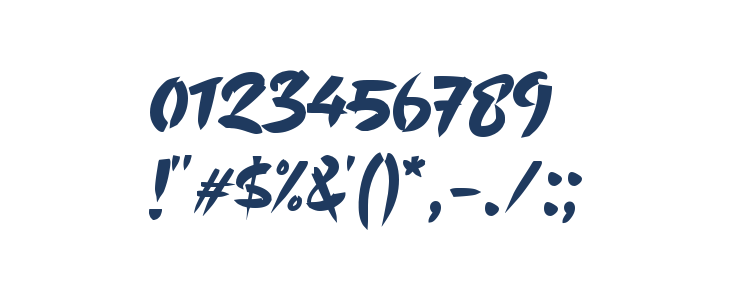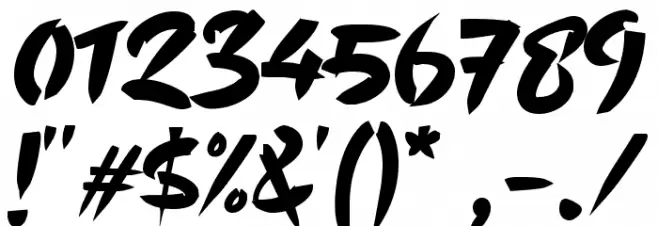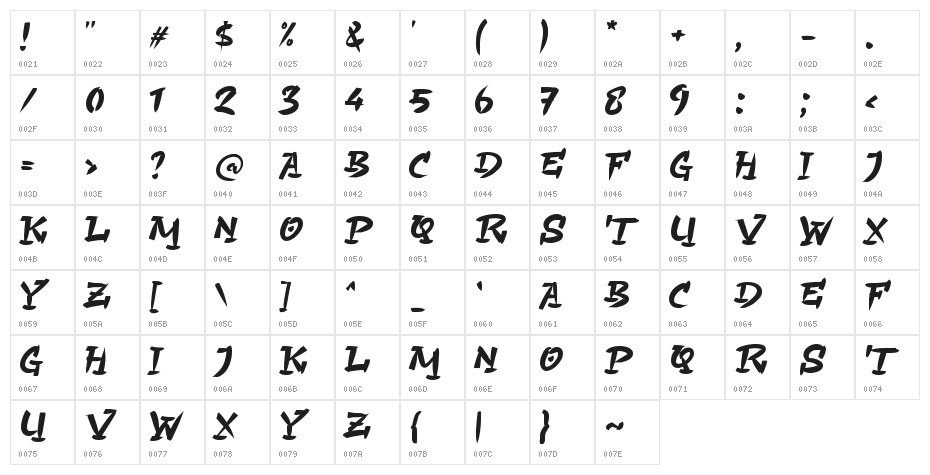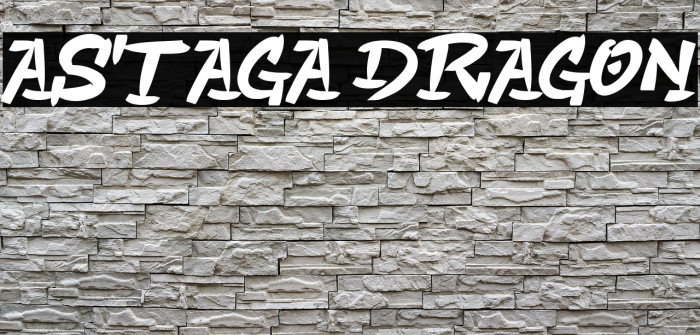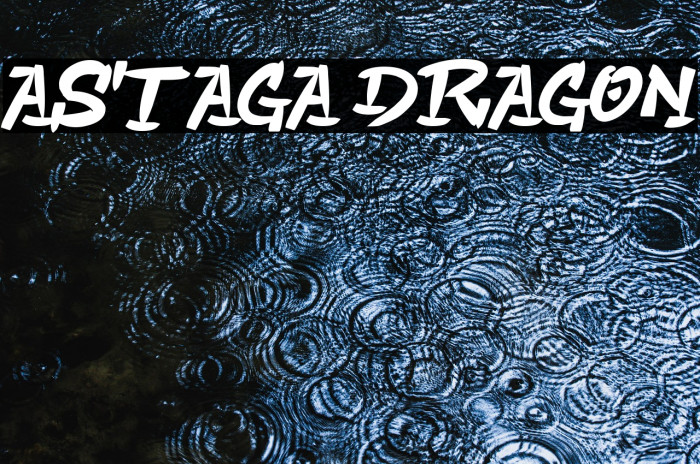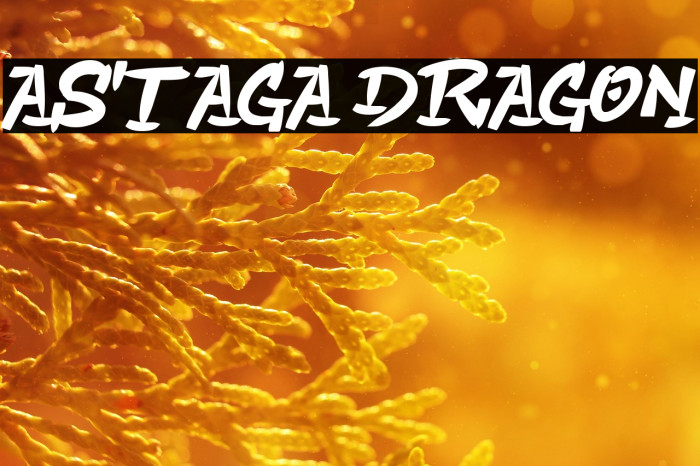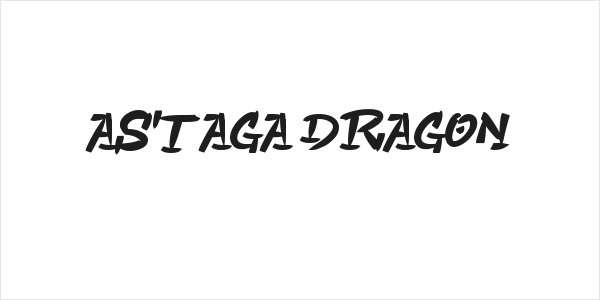
Astaga Dragon Font
Astaga Dragon Description
This font features a bold and dynamic style with sharp, angular edges and a sense of motion. The characters are designed with a brush-like appearance, giving them an energetic and aggressive feel. The uppercase letters are particularly striking, with exaggerated strokes that create a sense of drama and intensity. The lowercase letters maintain the same energetic style, ensuring consistency across the typeface. Numbers and special characters are equally bold, making them stand out in any design. This font is perfect for projects that require a strong and impactful visual presence.
| Proposed Projects | Ideal for sports branding, action movie posters, video game titles, and dynamic logos. |